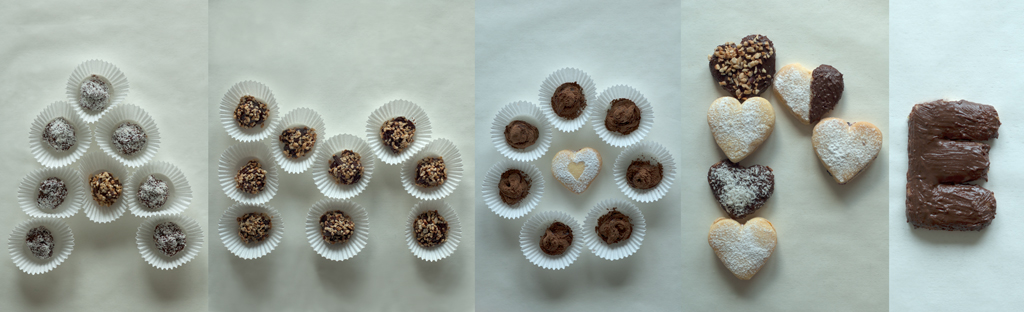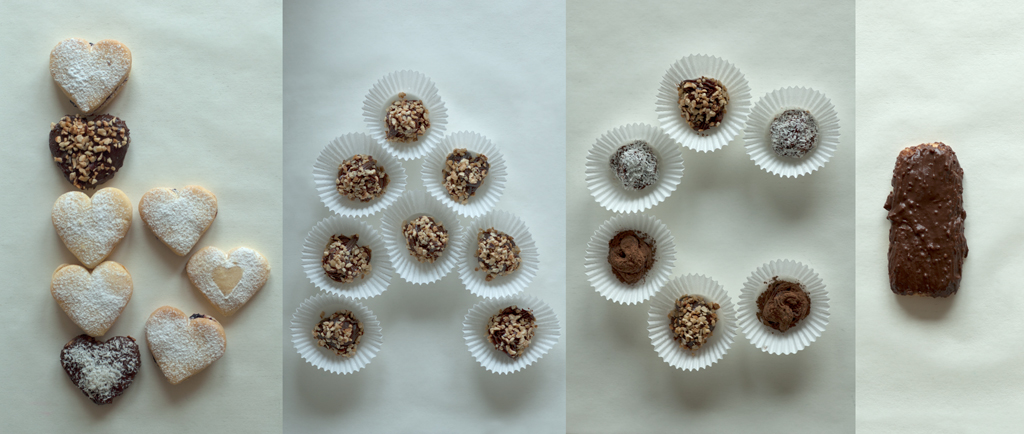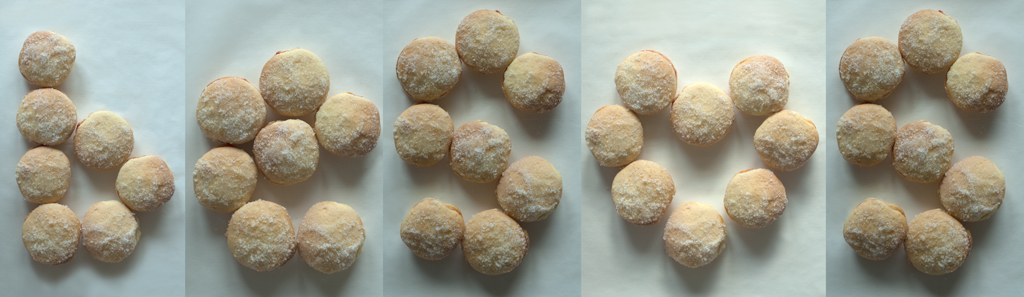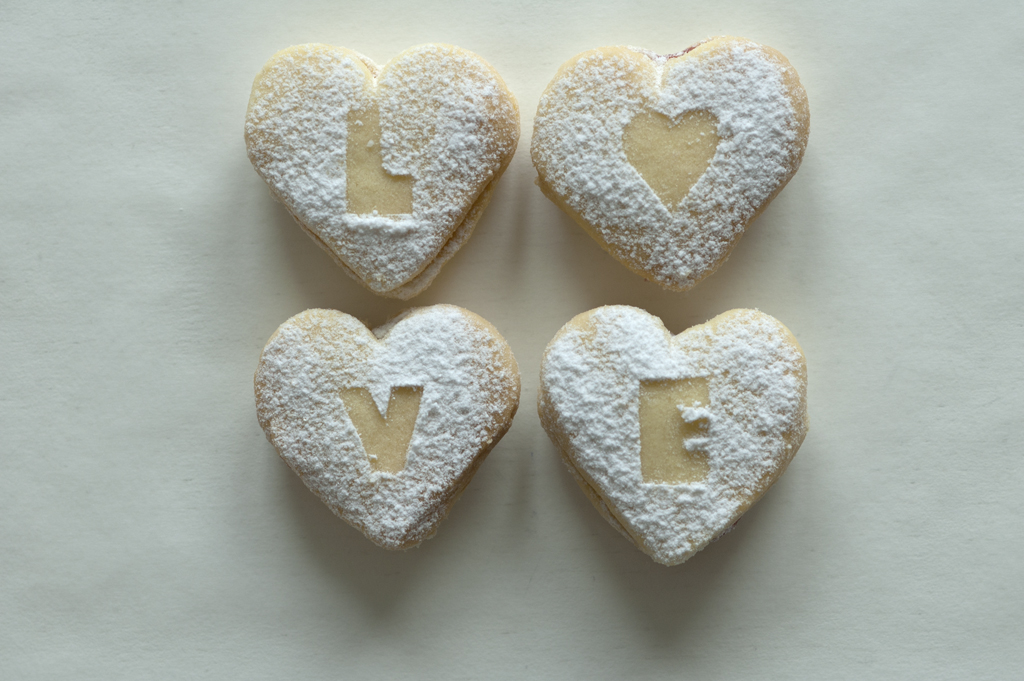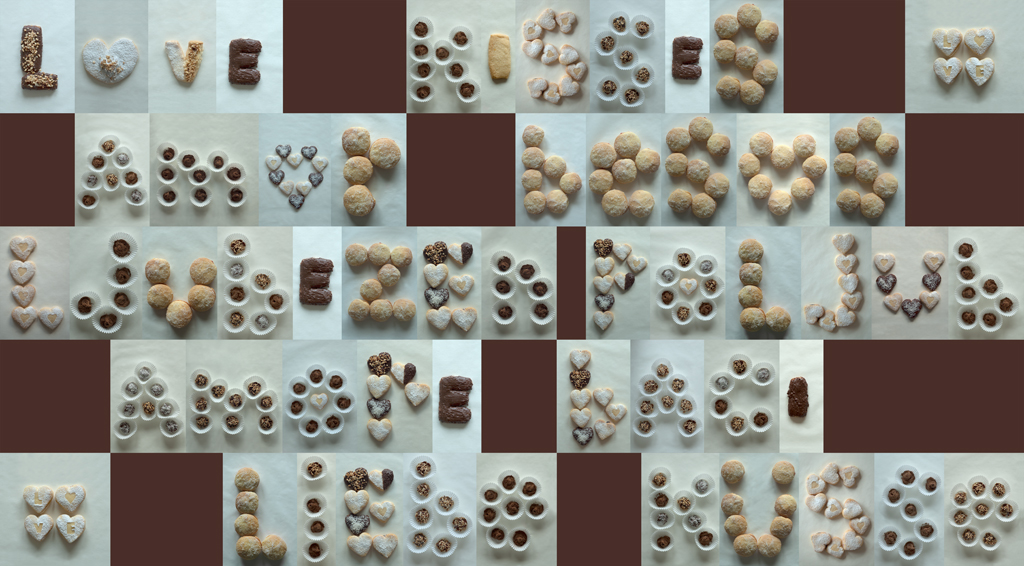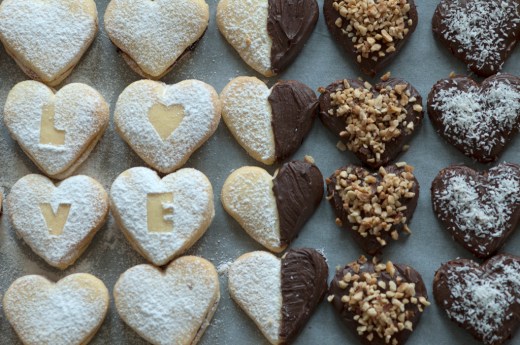
Love & kisses to eat in 5 languages
A delicious series of typographic cookies and sweets made by Andreja Brulc and inspired by the ‘besos’ pan dulce eaten in Mexico on Valentine’s Day. “I made ‘love and kisses in five languages: English, Spanish, Slovene, Italian and German” she explains.
Brulc has a continuing interest in combining celebratory food and type, read more about her London Meal, Happy 2013 and Happy Easter baking projects.
Andreja Brulc is a freelance graphic designer and illustrator. She completed an MA in Art History at University College London, and worked in the Exhibitions Department at the Royal Academy of Arts for nearly ten years. She won a public competition to become the principal cover designer for a major literary imprint of the Slovene book publisher Študentska založba, for whom she has now created over 200 titles.